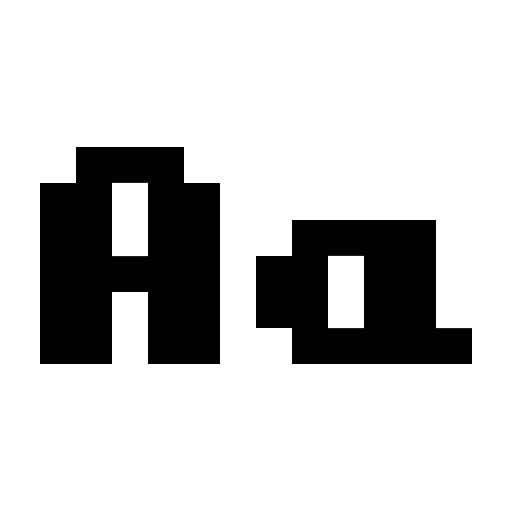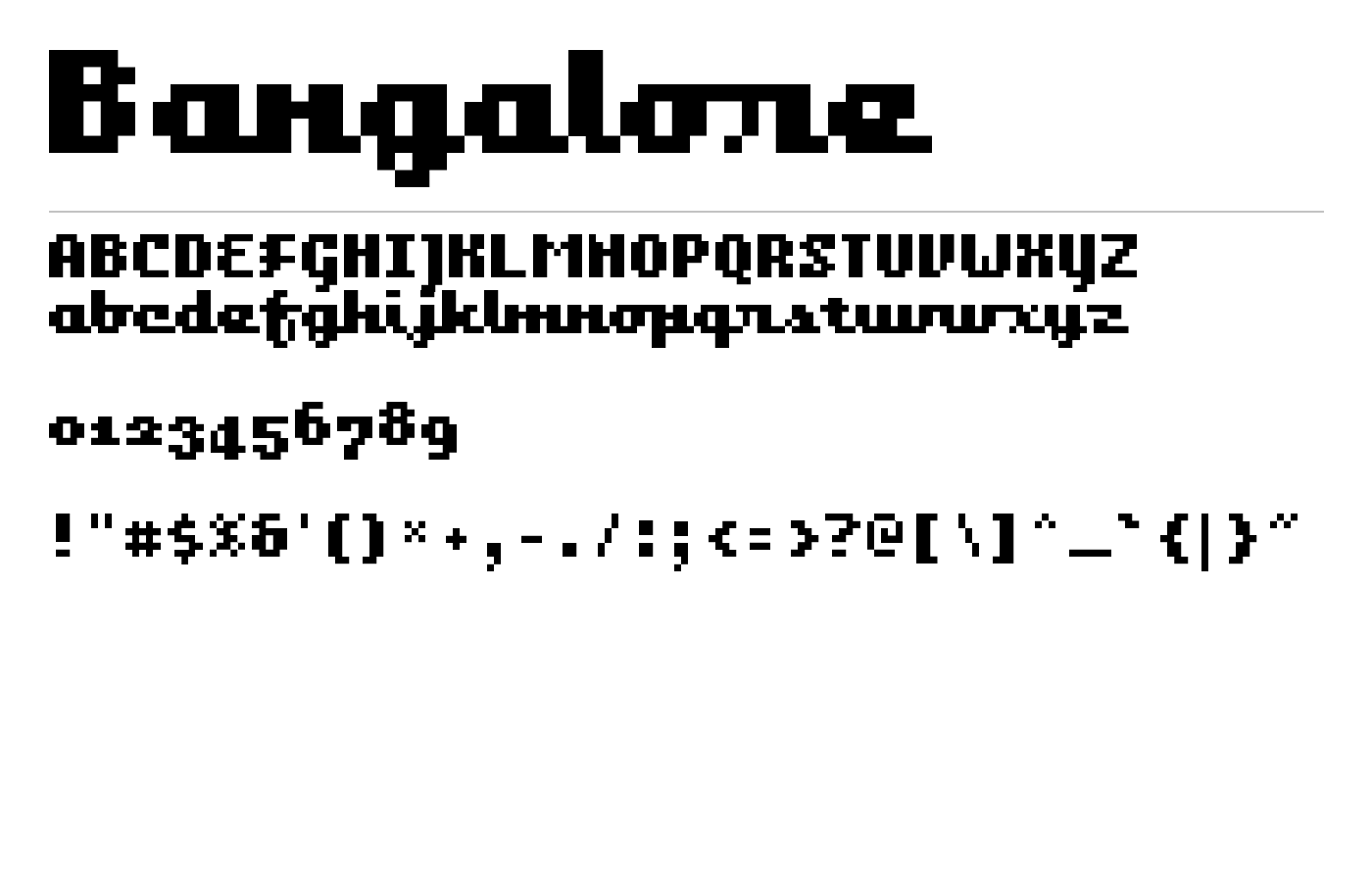
Bangalore is a distinctive pixel-style sans serif font characterized by its blocky, geometric shapes and retro digital aesthetic. Its monospaced, condensed letterforms with sharp edges and minimal curves give it a techy, nostalgic feel, making it ideal for projects seeking a vintage computer or video game vibe. This font works well for logos, posters, and digital interfaces where a bold, eye-catching, and uniquely old-school style is desired.
Bangalore Font
About Bangalore Font